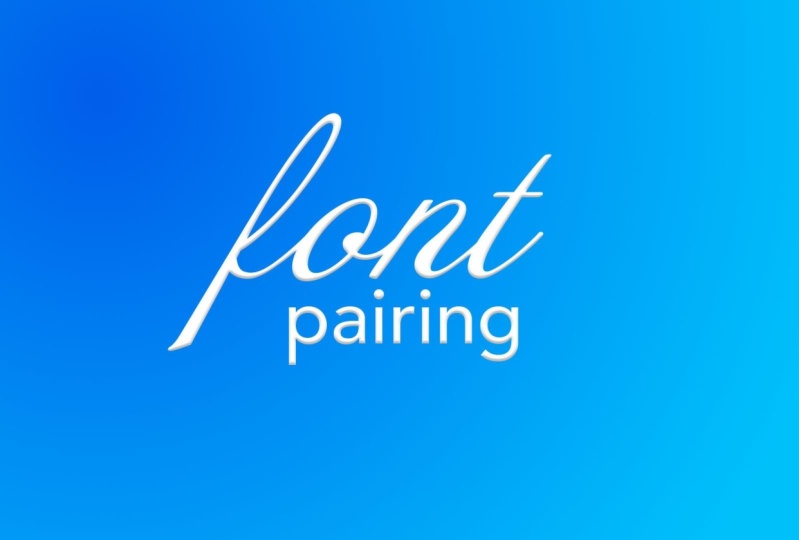
Font Pairing: Learn to Choose Cohesive Typefaces
Welcome to my class on the art of font pairing! In the broad world of design, there are a few things that are truly universal. One of those things is conveying information with text. And even before information is conveyed with body text, we often look at display text to get a feel for what we’re about to read or watch. With that said, it’s important to understand how we can convey that information in a way that is appropriate, easy to understand, and aesthetically sound. The purpose of this class will be to cover all three of those necessities so that everyone can have a better understand of how font pairing works.
This class is going to cover a variety of topics around fonts and typography, including the following:
• Rules of pairing
• Type Anatomy
• Styles of fonts
• Examples of fonts that pair well
Fonts are one of the pillars of all design, and making sure that you have a strong foundation is imperative to growing as a designer. With this class, I think we’ll all be able to push ourselves forward, both designers and non-designers alike, in order to develop an eye for the world of design.
1. Intro: Hi, My name is Nick Best Squall and I'm a graphic designer out of New Jersey. The goal of this class is to provide you with the fundamentals of pairing display phones. One of the cornerstones of design is understanding how type pieces work as well as how they work with each other. And while many designers learn these rules from years of exposure and practice, this class will act as a crash course to get you on your way to becoming much more comfortable with tight. We could break down this class into two main sections, how to pair fonts in general and then how to pair specific types of funds and want to have a good understanding of how those two things work. You have a great base to build future designs off. Here are a few other things that were going to go over in this class type anatomy type classifications, and then we'll take a look at a couple real world examples. Finally, we'll go over the assignment for your class, really create a title page for our class, using the skills and rules that will go over. I hope you guys have enjoyed this introduction. Now let's dive into some typography 2. Type Classifications: There are thousands upon thousands of font in existence, so it's important to be able to classify all of them, despite there being so many. All fonts can be divided into four main categories. Serif san Serif script and decorative. From there, there are dozens of sub categories, but we don't need a worry about all of those. In fact, in this class we're only going to talk about the first of the before mentioned classifications and one subcategory slab served. So let's take a look at what the difference of these four categories are, as well as a couple examples that you've probably already seen. Maybe only using Microsoft Word Sarah A. Serra fund is any thought that contains a serif or a small line at the end of its letters. A couple examples. You may know our times New Roman or treason Pro san serif, literally meaning without Saref. A san serif is a font that does not contain decorations or lines at the end of the letters . Some examples are aerial an impact slab serve slabs. Arabs like Saref are fonts with small decorations. At the end of the letters, however, slab serif zehr, characterized by thick blocky Serifis. You may have seen examples of these fonts, such as Roboto Slab or Claire, and done script, script typefaces or fonts that are based off the fluidity of handwriting. And it makes him look a lot different than Sarah, Sir. Sansa thoughts. You may have seen examples of scripts, fonts such as brush, script and lobster. 3. Purpose: when choosing a font for a title, a logo or even a social media post, it's important that your fonts are chosen with a purpose. So before you even start looking for a font, let's take a step back and look at what you're picking a fund for. You have to shift your perspective from the very beginning. It's not about picking a cool font. The goal is to solve a problem. So what problem are you trying to solve? Here are a couple questions you should ask yourself when analyzing your design. Should it represent a specific style, this could be seen in fonts that lend themselves to feel Western. Or maybe you feel Saifi. Should it carry a certain tone, think comedic or formal for me. Once I find the style or tone that what I want my designs to carry, I like to spend time looking for inspiration. Pieces. Exposing yourself to new are is vital to improving your own designs, because when you start spending time researching, you'll achieve two things. The first is that you'll be able to quickly define what you want your designs to be. The second is that you'll be able to pull ideas from your head in order to develop new and even mawr interesting ideas of your own. Developing the purpose of your design is a first step in creating an interesting composition. 4. Contrast: in design. Contrast is your friend, especially when creating display titles. Creating a sense of contrast will give her designs a better sense of hierarchy as well as a better sense of death, these air super important in order to convey information quickly and accurately if the titles the main drawing of a design, making sure that the I understands the phrase and find it pleasing could be a great benefit to the overall effectiveness in your design. If there's one thing that I would recommend anyone takes out of this class, it would be the importance of using contrast in combining fonts. The nice thing is that there's so many different ways to do that. Here, just a couple ways you can create contrast in your design. You can make serif and sans serif fonts. You could mix tall and wide funds. You can mix heavy and thin weights. You could mix large and small thought sizes. You could use a variety of color where you can mix different spacings of your fonts. Or you could use the shapes of your fonts to create unique combinations. But don't let it stop there. Use your imagination to create combinations that revolve around creating contrast in your designs and study how other people do the same thing. Contrast is very much your friend, and you should be taking advantage of it. However, there's a balance to consider while you while you're designed to contrast, you don't want your design to conflict. One easy way to ensure that your fonts are complementary is to make sure that the fonts carry the same moon. If one font feels western, don't make the other feel medieval. The thought that belongs in a band's gig poster may not belong in that healthcare pamphlet you're designing, so don't put them together. Keeping your thoughts in the same mood will help create a sense of unity in your design. 5. Families: One of the easiest ways to pair fonts is to stay within a font, family or super family thought. Families are groups of the same thought that come in different weights. Super families are fonts that fall under multiple classifications. Using families and super families can help create a sense of hierarchy by associating certain types of information to just titles to a certain waiter style and other types of information, such as copy to a different one. You can also play around with how the fonts are presented, using color, size and shape in order to differentiate them from one another. Here, a couple slides from the introduction to Saturday Night Live. Take note of how all of these slides contain the same font, but in different weights and style. The introduction designed by Pentagram is a great example of how a font family can be used in different ways in order to portray different types of information. In this case, the thin weights of Gotham were used when showing a host of the show, and the heavy weight of Gotham was used in creating the title because they're using a single thought family and all their different slides they have the freedom to present the same font in a multitude of different ways without causing any sort of conflict in the design. The studio even created a customized, dotted version of Gotham in order to add another variation to the sequence, all while staying within the confines of the Gotham Font family font. Families are one of the simplest ways to pair funds easily and should certainly be utilized when possible. 6. Serif: the past couple of videos have focused on a few general rules of font pairing as we learned about purpose, contrast and families. Now let's start the second half of the class where we talk about how to pair specific classifications of thoughts. Let me preface it with this, though. I'm gonna be talking about font pairing in a general safe practice. But there are tons of designs that break the rules I'm going to discuss. However, I would encourage people who are looking for a starting point to follow these rules in order to understand how fought parent works from there feel free to experiment. But remember that rules are set in place for a reason. All right, so let's kick this second half off with Sarah fonts. Sarah Ifs could very easily be considered the foundation of type. For the longest time, Sarah fonts were used as a method of formal communication and were used in the first examples of printing. Historically, Sarah fonts have been considered easier to read and better for copy. However, Sarah's congest is easily be used for style and have been used to treat some incredible designs in the past. A general rule of pairing Saref is to Paris sheriff with a sand saref. Using a slab or decorative or script fought is very difficult to pair serves with, as the fonts tend to compete with each other, using a San serif enables the serif to stand out and be the center of the design. Let's take a look at a poster that features a serif as the main display type. In this poster of Jean Luc Godard's breathless designer, Peter Straws, Field showcases a serif with its thick cliff IQ serifis as the title here, the designer chooses to match some qualities and contrast others. If you'll notice straws, Field chooses to pair the spot with a narrow, taller San Sarah and by using a tall san serif. The design complements the shape of the serif title font while using the Sand Saref to highlight the engraved look of the Sarah. When using a serif with so much personality, it's important to let it speak. And that's exactly what this combination does. Here are a couple examples of a few serif font combinations Albertus and champion Gothic Merryweather and Open Sands Shrink Hand and Gotham 7. Sans Serif: as vast as the sea of fonts can be. San serves air, probably the largest pool san Serif fonts are funds without the small decorations that Sarah's have and are incredibly versatile when it comes to font period. Because since Arabs are Gothic in nature and meaning that the line with is uniform, this opens up the opportunity to pair these funds with a huge variety of different thoughts . San tariffs congenitally be paired with any other category as long as the composition is strong. So what I'll say is this. Because San tariffs can easily be paired with so many fonts, it's easy to get distracted and to go with the first font pair you find. But the problem is that the first options are always the best. Earlier, we talked about how font pairing is an act of problem solving. It's about fitting the mood while creating an interesting composition. Well, serif skin differ based on the style of Sarah Sand. Saref is really rely on more fundamental descriptors such as heightened Wait, let's take Oswald, for example, one of the most obvious characteristics of Oswald is its height in its shape, which is rectangular. Knowing this, we can create contrast in a few different ways if we want to create contrast based on shape , repair the rectangular Oswald with a more square Gotham or Monserrat. However, if we want a pair it with a serif, we compare it with a more contemporary serif, such as droid serif. When choosing a font to pair with your Sand Saref, let it have a little bit more character so that you can achieve the mood that you're targeting in your design. Here are a couple sans serif font combinations Oswald and Lado Lee Gothic and several be me Oh and Bree. 8. Slab Serif: slab serif are a Superfund group of funds there gritty and they're loud, and they can carry so much character they could be some of the most fun funds to play around with. However, slabs tariffs can also be intimidating as a font as their loudness comes off much stronger than that of Saref. Sir Sand serves the good news is because of their pronounced characteristics. You're traditionally left with one style to pair them with. For slabs sheriff's I would recommend pairing your font with a Sand Saref. Like I mentioned before. There's so much personality that comes with a slab serif. I don't think we need to combat it with another type of decorative or Sarah font. Using a san serif will allow room for your slab serif to breathe, and, more importantly, will draw more attention to the details of these fonts. I don't think the fund your pairing it with necessarily needs to be calm, but having a font with a quieter shape will accent the large rounded serifis of your Slab Serra Fund. Here are a couple examples. Take this poster of Alphaville, for example. Take a look to see how a condensed slab serif pairs well with a wider san serve. And though the style of these two fonts are different, the mood of these fonts feel the same. Together they create this sort of western style that calls to the middle of the 20th century. There's one exception to pairing slabs tariffs, and that is in the use of American Western typography. During that time period, a lot of slabs terrorist were used in combination with other slob serves and even sometimes with normal serves. Even though these fonts aren't necessarily by the rules, the use of them in this historical style makes it really effective. While it could be very easy to lose hierarchy when using slabs tariffs, using them in combination with different colors and sizes and san tariffs can make for a few really unique pieces. Here are a few slab serif font combinations, clear and on extra condensed and low Archer and Verlag 9. Script: cursive font pairing can be really tricky. The shape of the letters are fundamentally different than that of Sarah's or sand serves. That said, the difference in shapes can lead to a couple really creative designs. Personally, I find that cursive fonts have a lot of great detail to them, and that can carry a lot of information just in their own style. When dealing with the fault like that, my recommendation is to use a san serif in order to retain the loudness of occurs a font without watering it down. One of my favorite ways to do this is to you, super families, just like we mentioned before. Using super families could be a great way to pair fonts. Here's a design that exemplifies how a script bond can be used with a sans serif heading Log in Breath created this awesome German stamp design using a bunch of different examples of script and san tariffs that all belong in saying super family. However, some scripts don't have a Sand Saref to match it in a super family. For those, I recommend playing around with Shape of the cursive to see how you can fit the sand Saref in to match in a way that's interesting and unique. Cursive fonts have so much character to them that it's important that when you're using them, that you let them speak and carry your designs. 10. Assignment: So in this class you've learned how to combine fonts using a variety of methods, and you've also seen some real life examples of how professional designers pair funds. Now it's your turn. Using Adobe Photo Shop opened up the PSD file attached to the class. In it, you'll find a title card of default funds, but I want you to do is take this PSD file and making awesome slide that we could potentially use as a cover for the class view of any question about anything I've said in the class. Post them in the class discussion forum where I can see everything and respond.